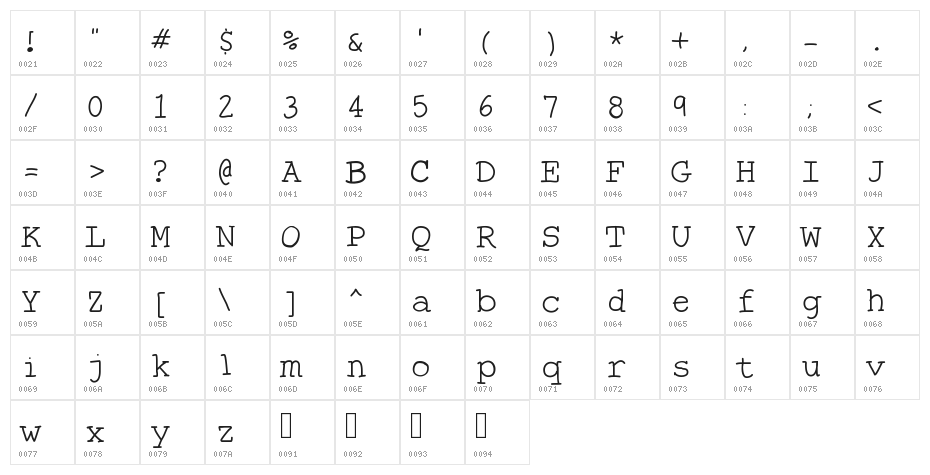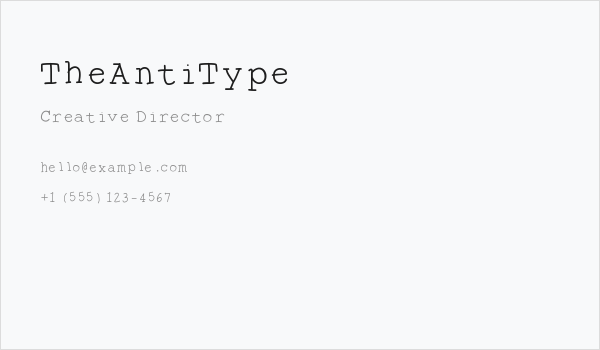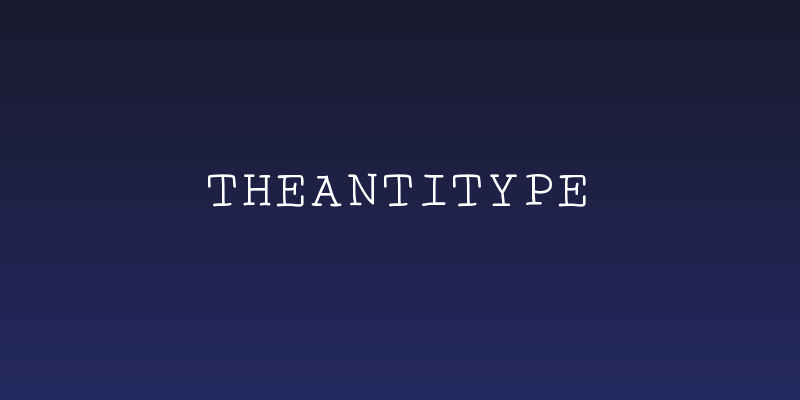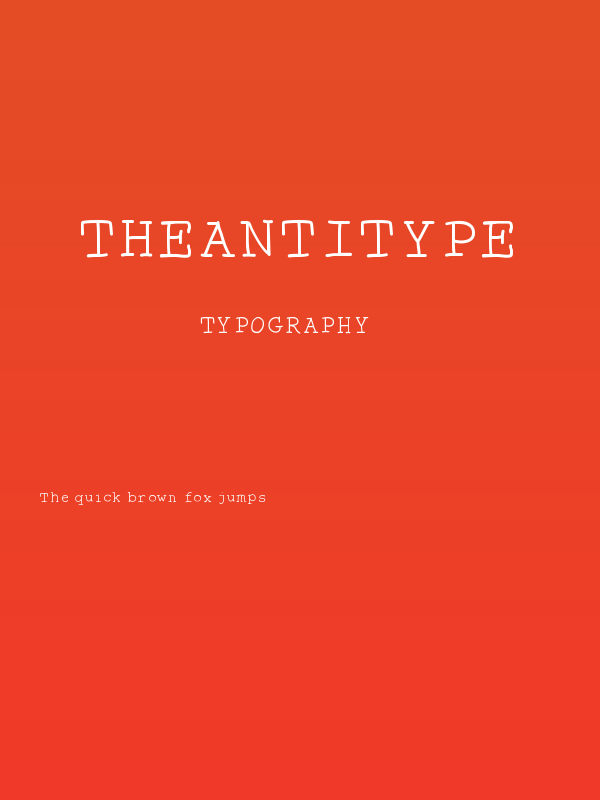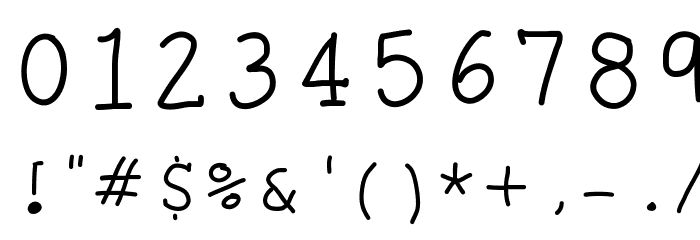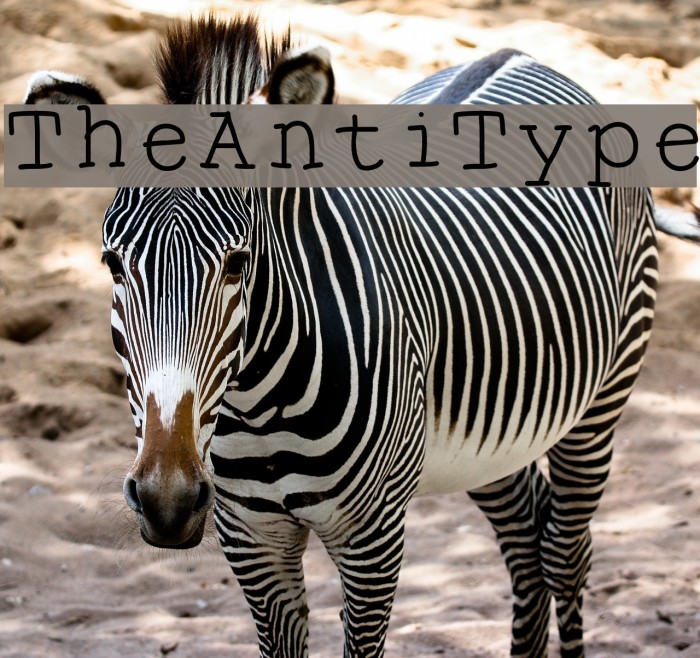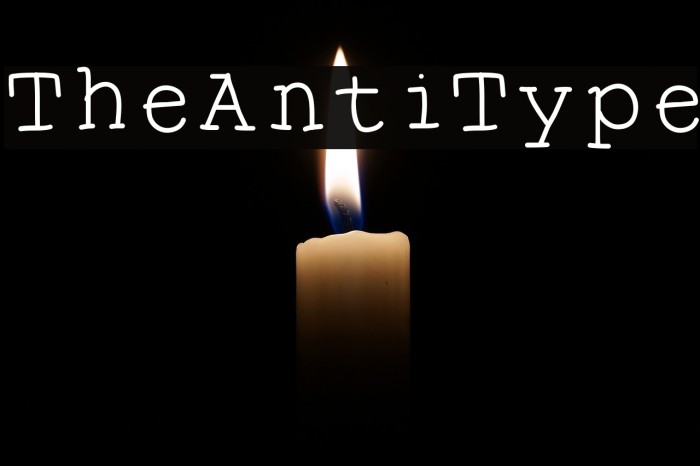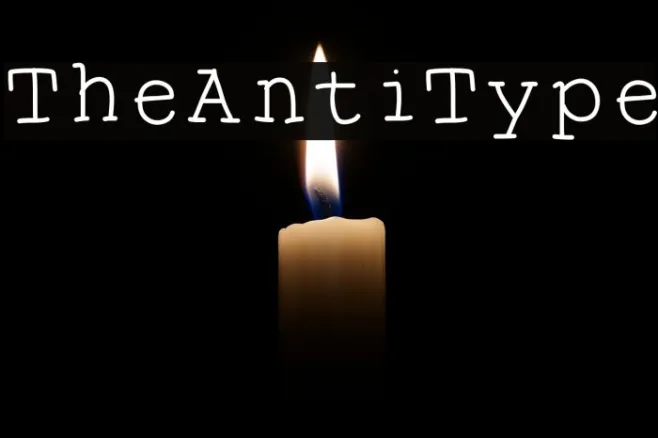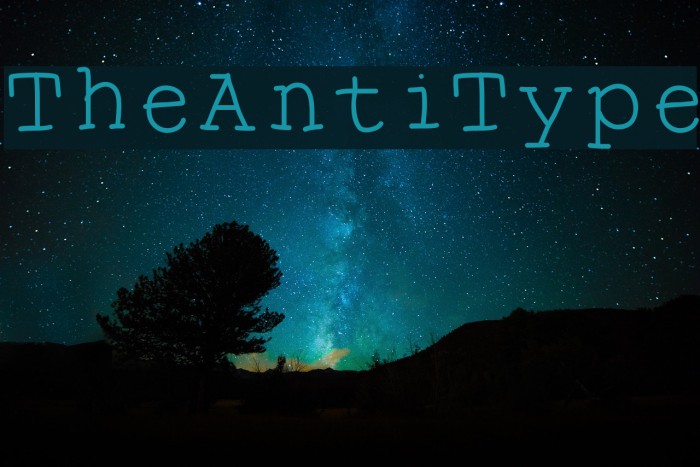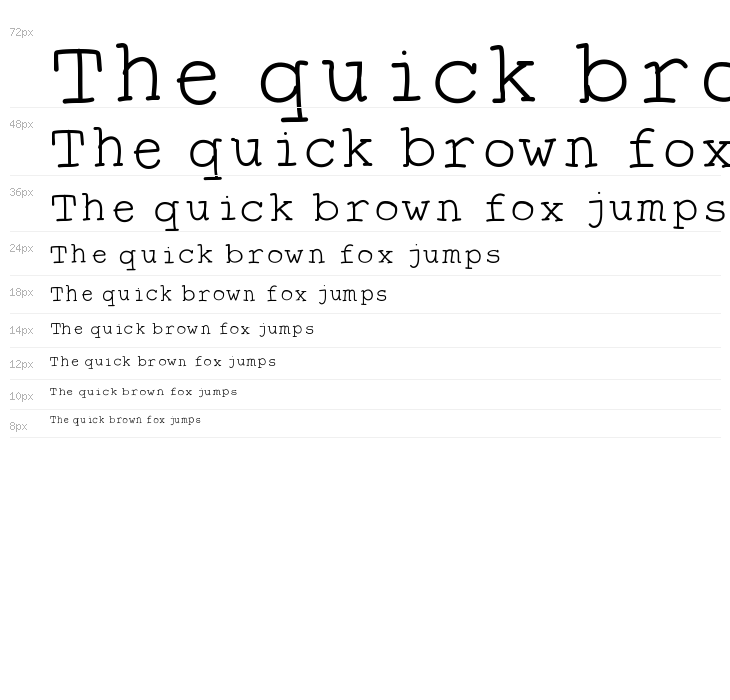
TheAntiType Font
TheAntiType Description
This font features a playful and casual style with a handwritten appearance. The letters are slightly irregular, giving them a natural and organic feel. The uppercase and lowercase characters maintain a consistent height, while the numerals and special characters complement the overall aesthetic. The strokes are moderately thick, providing good readability without compromising the informal vibe. The font's quirky and friendly nature makes it suitable for projects that require a personal touch or a relaxed atmosphere.
| Use Case | Headlines, Informal text, Branding |
| Proposed Projects | Ideal for greeting cards, children's books, personal blogs, and informal branding. |